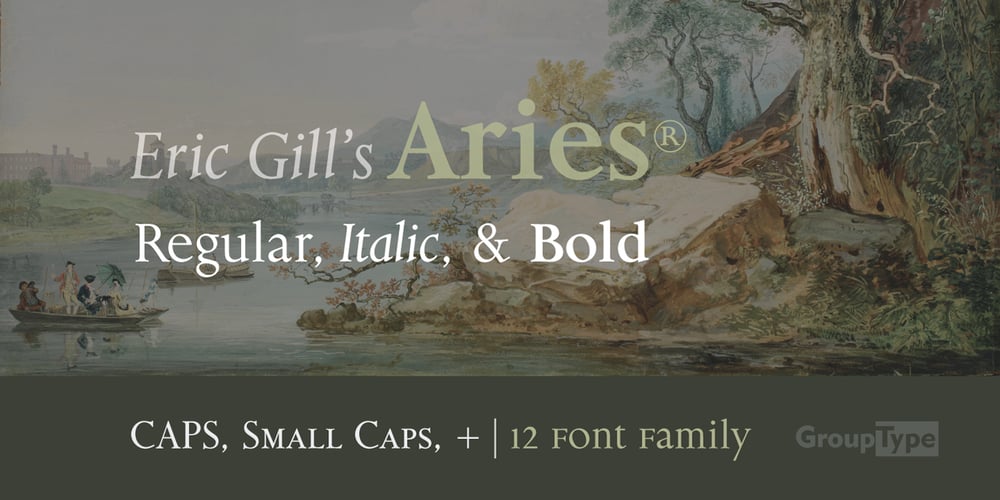
Aries Font Family was designed by Eric Gill and published by GroupType. Aries contains 5 styles and family package options. In 1995, FontHaus came upon a rare opportunity to create a revival of Aries, a little known and previously unavailable typeface designed by the legendary Eric Gill in 1931. Discovering a lost typeface by one of the major designers of the 20th Century, was like the discovery of buried treasure, and being the first type company to release it in a digital format was an honor. Aries® is now in the fonts catalog of GroupType who owns the the registered trademark and has licensed this historical typeface to FontHaus as distributor.